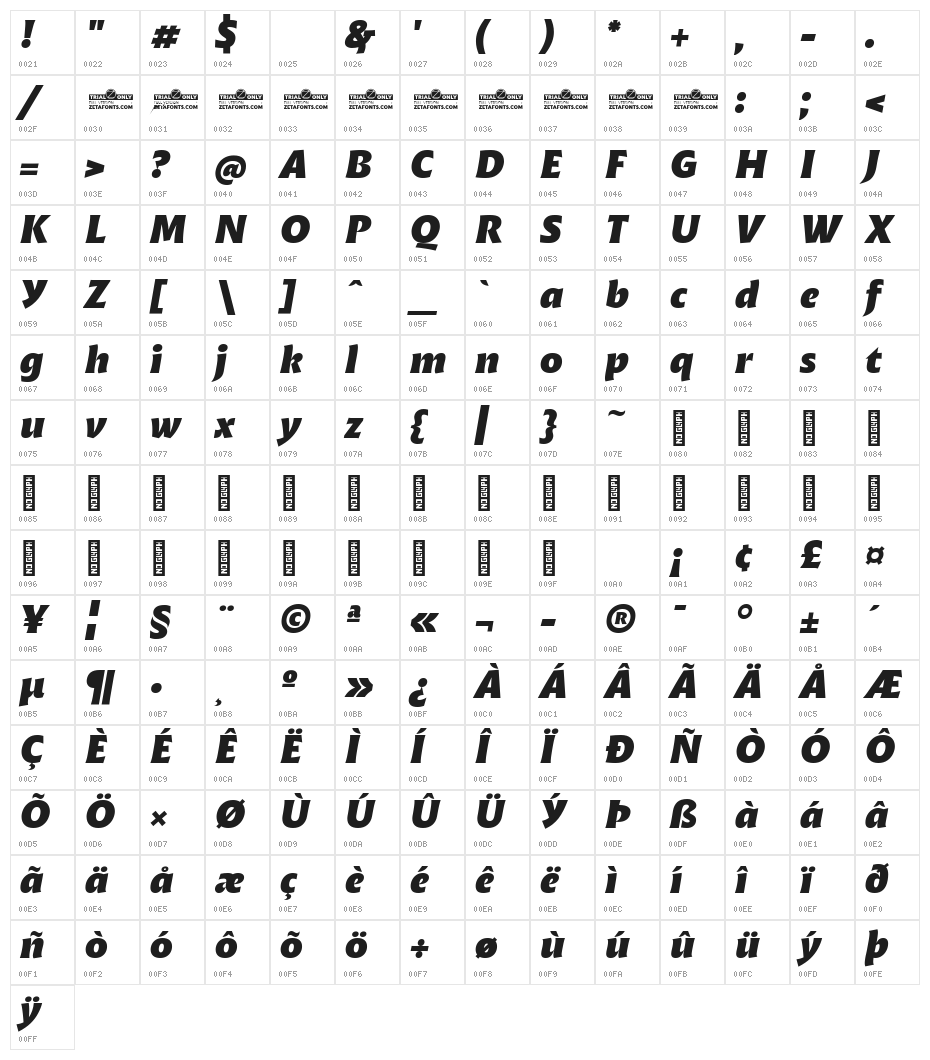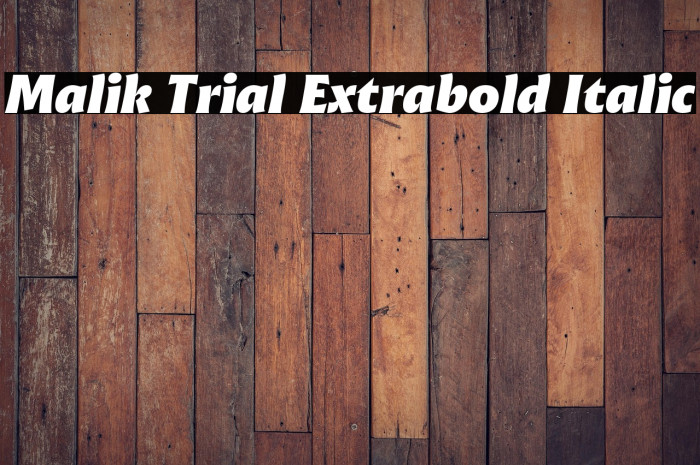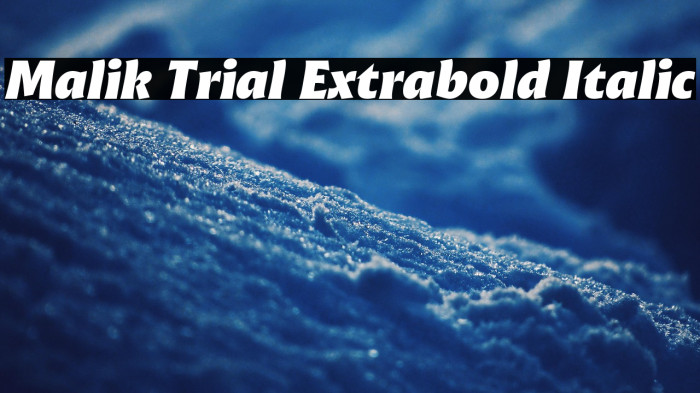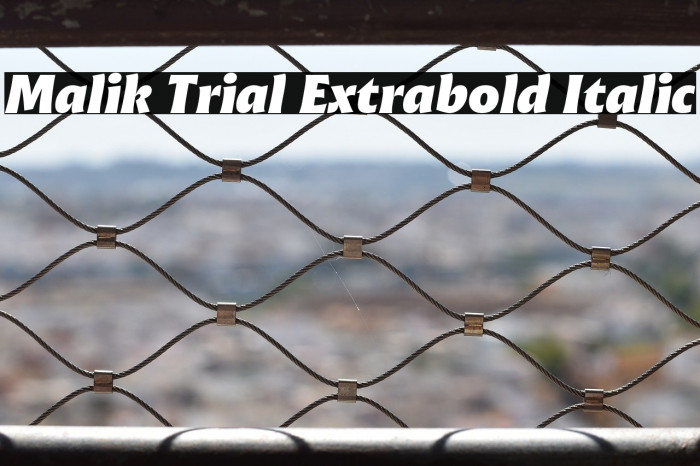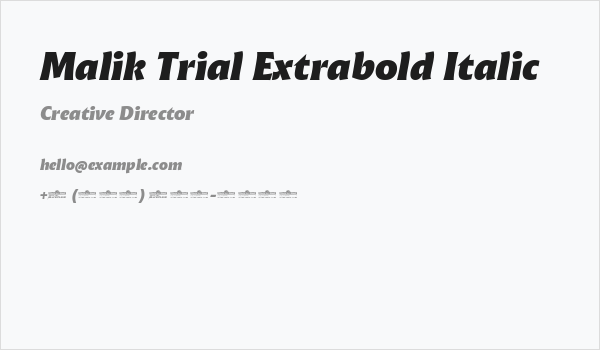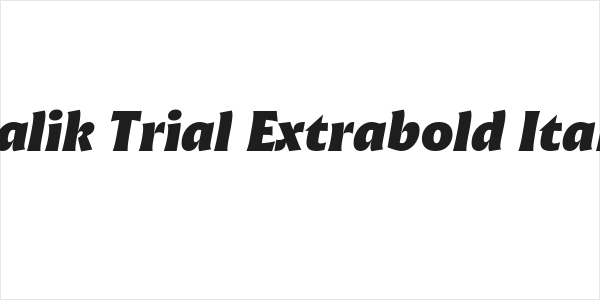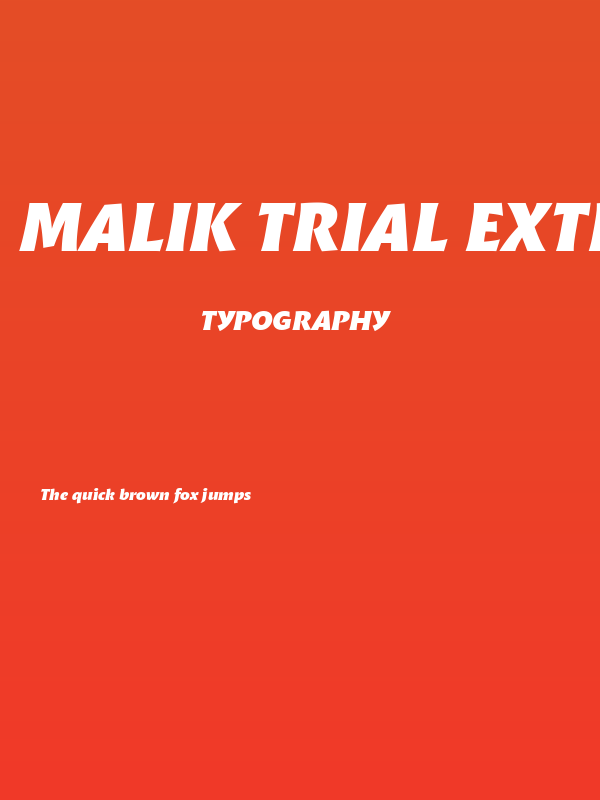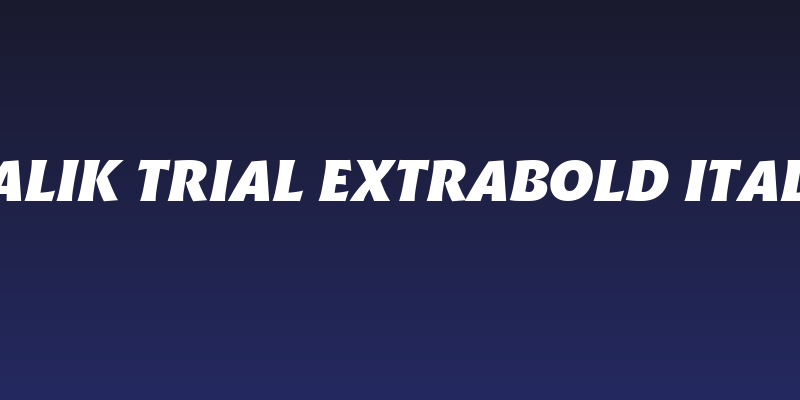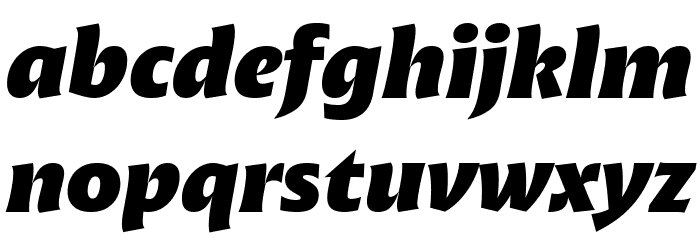
Malik Trial Extrabold Italic Font
Malik Trial Extrabold Italic Description
This font exhibits a bold and dynamic presence with its extra-bold weight and italic style. The characters are slightly slanted, adding a sense of motion and energy. The strokes are thick and consistent, providing a strong visual impact. The uppercase letters are robust and commanding, while the lowercase letters maintain a cohesive flow. The numerals and special characters are designed to complement the overall bold aesthetic, making this font suitable for attention-grabbing designs.
| Proposed Projects | Ideal for headlines, posters, branding materials, and any design requiring a strong, impactful typeface. |